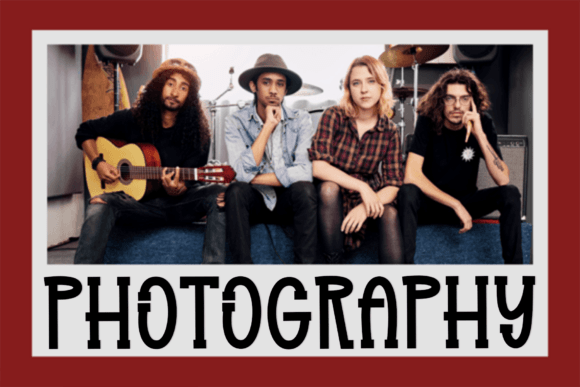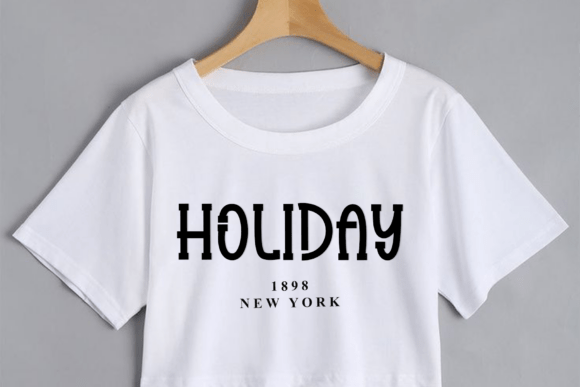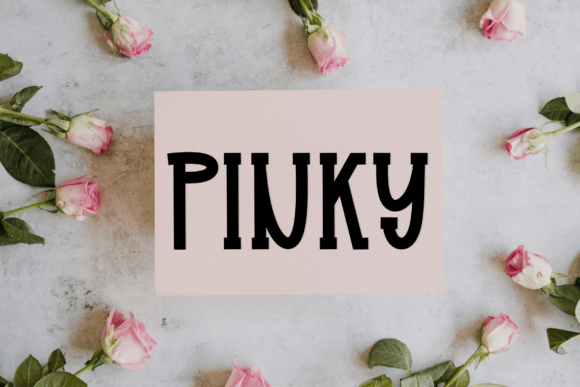
Introduction to Nothing Holiday Font
Nothing Holiday is a unique and bold display font characterized by its chunky, rounded structure and distinct, impactful cutouts.
The heavy, geometric forms give it an industrial or block-print quality, making it excellent for striking headlines that need to look robust and slightly vintage-inspired Use this font for strong poster designs, urban apparel, unique logos, and projects that require a memorable, bold, and unconventional look.